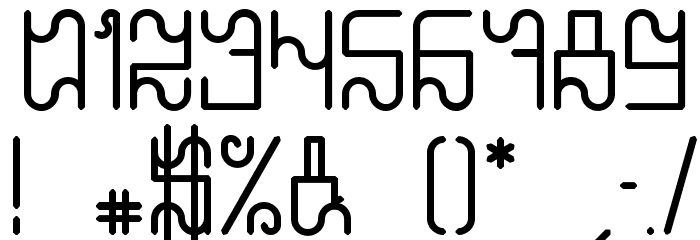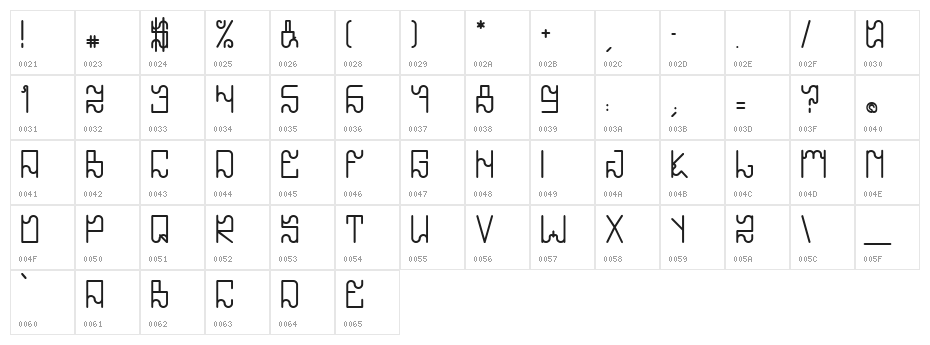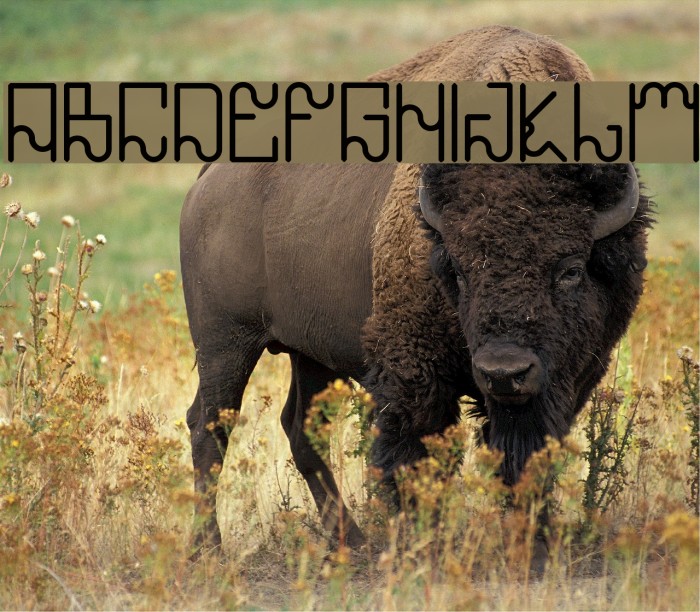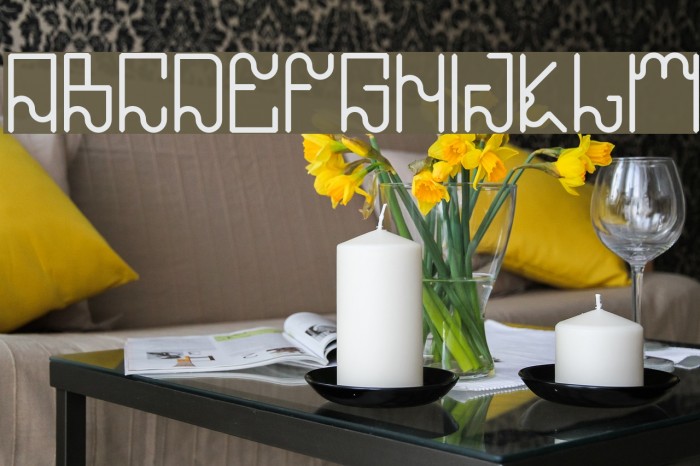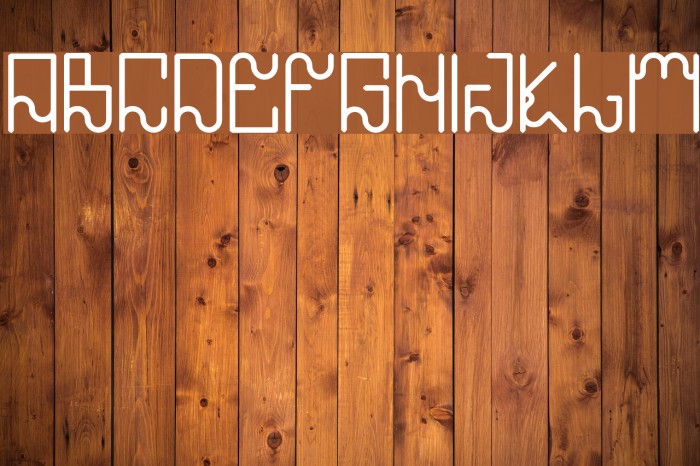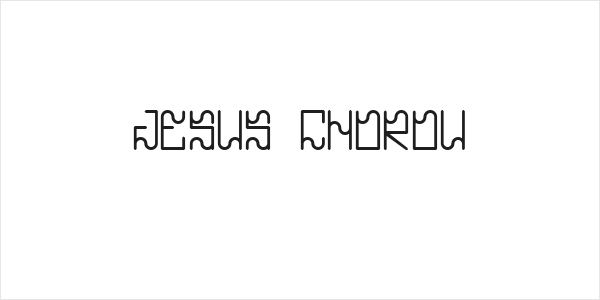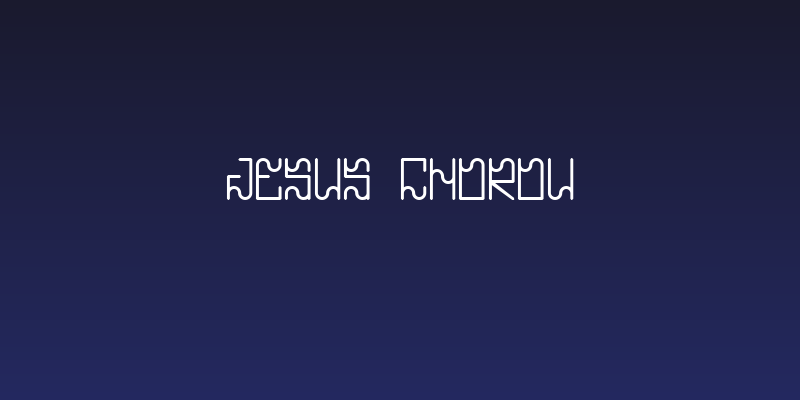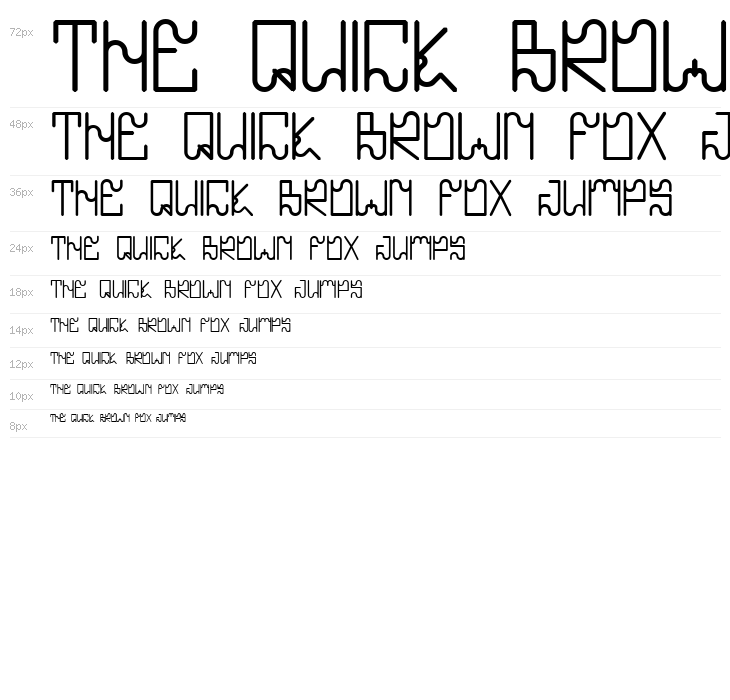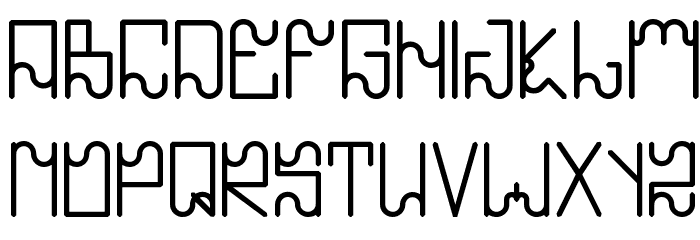
Jesus Chorou Font
Jesus Chorou Description
This font features a unique and modern design with a geometric and abstract style. Each character is crafted with a series of interconnected lines and curves, creating a futuristic and artistic appearance. The uppercase and lowercase letters maintain a consistent height, while the numbers and special characters follow the same design principles, ensuring uniformity across all elements. The font's distinctiveness lies in its ability to blend straight lines with gentle curves, resulting in a visually intriguing typeface that stands out in any design context.
| Proposed Projects | Ideal for futuristic branding, digital art projects, and modern poster designs. |